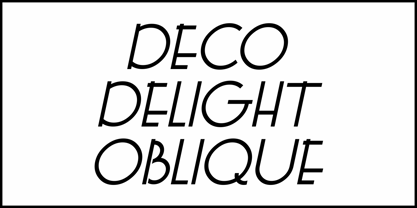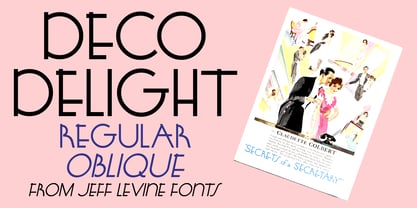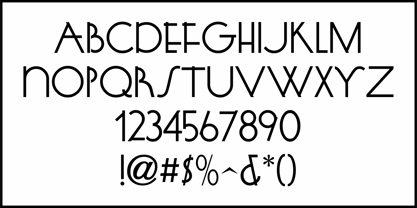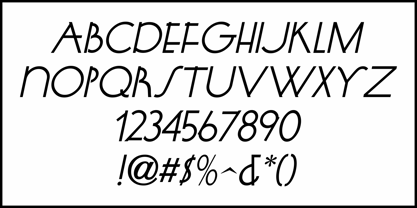
Deco Delight JNL
by Jeff Levine
An ad for the film "Secrets of a Secretary" in the May 2, 1931 issue of Motion Picture Herald provided some lovely Art Deco hand lettering in a stylized monoline design.
This is now available as Deco Delight JNL, in both regular and oblique versions.
Jeff Levine has been in love with lettering since the third grade, when a schoolmate brought a lettering stencil into class. He has worked in both the graphics and music industries, and began his work with digital type via his own site, which hosted over one hundred free dingbat fonts until its retirement in 2009. Although these fonts were experimental at best, Jeff received "thank you" letters from points all over the world for making his designs available. Encouraged by these responses, Jeff decided to set his sights on creating interesting and commercially viable type fonts.